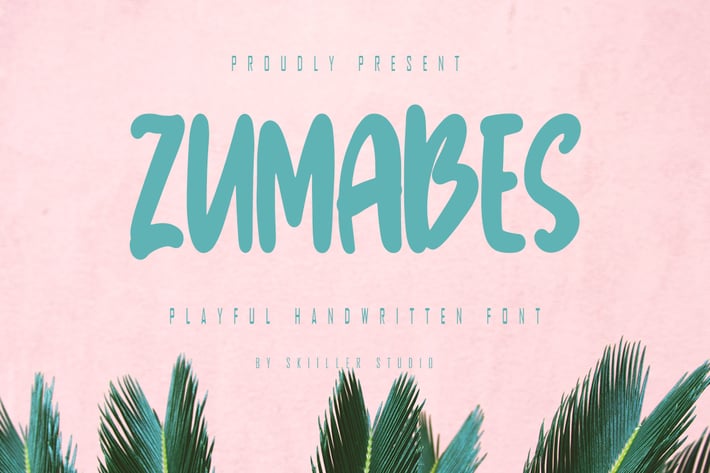
Zumabes - Playful Handwritten Font
Zumabes Playful sans serif Font. It looks beautiful on a variety of designs requiring a personalized style, such as wedding invitations, thank you cards, weddings, greeting cards, logos and so on. This font is PUA encoded which means you can access all of the glyphs with ease!